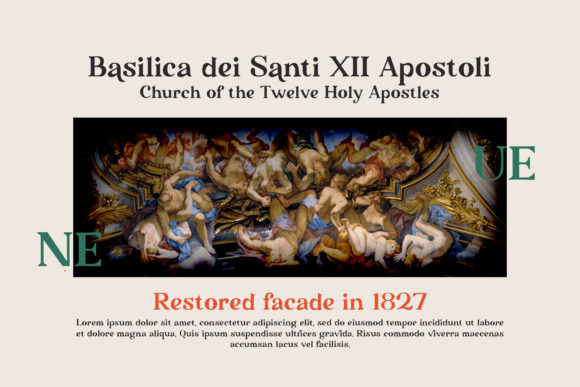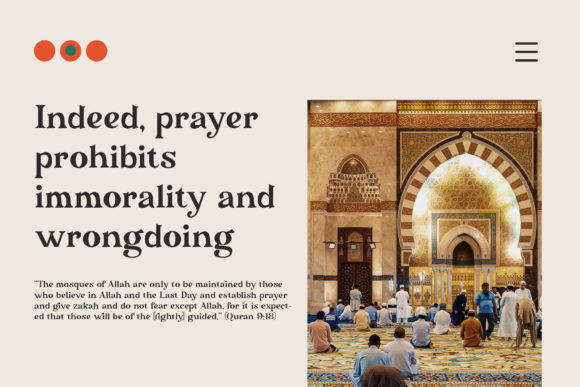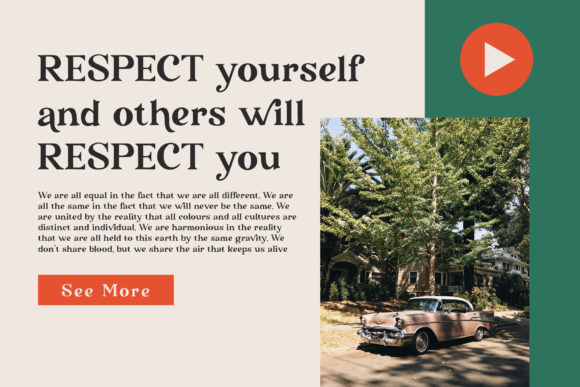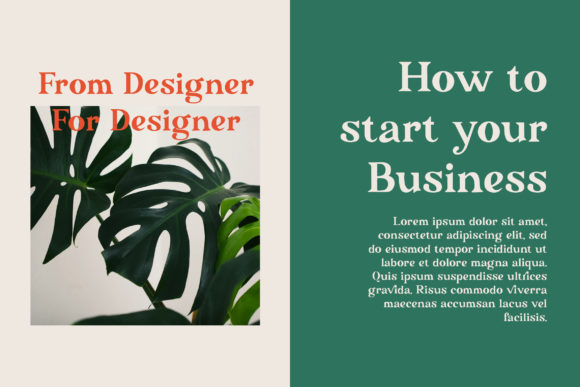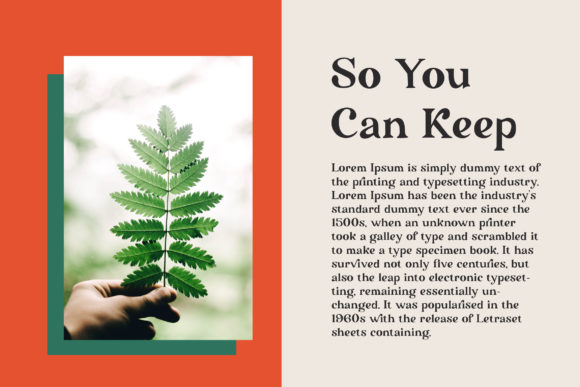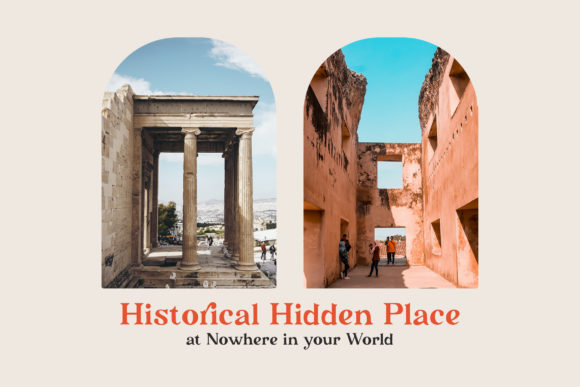
Introduction to Gensino Font
As designers, we’ve all been there – staring at a blank canvas, searching for the perfect font to bring our creative project to life. The right font can make all the difference, elevating a design from bland to grand. For those seeking a charming and elegant serif font, look no further than the Gensino Font.
This beautiful font is perfect for designers who want to add a touch of sophistication to their work. With its high-quality design and transparent background, the Gensino Font is a valuable resource for any creative project. Whether you’re working on a graphic design, logo, or typography project, this font is sure to impress. And the best part? It’s available for free download, making it an excellent addition to any design arsenal.
Key Features of Gensino Font
- High-quality design resource ideal for creative projects, including graphics and digital art.
- Features a transparent background, allowing for effortless layering and blending with other design elements.
- Designed with a modern aesthetic, Gensino Font is perfect for adding a touch of sophistication to your creative project.
- Resolution-independent, ensuring crisp and clear display across various devices and screen sizes.
Honest Review: Gensino Font
I recently had the chance to work with the Gensino Font, and I must say it’s a great addition to my design resource library. The high quality of this font made it a perfect choice for my latest creative project.
Here are some of the things that I liked about the Gensino Font:
- ✨ Unique and stylish design that adds a touch of sophistication to any project.
- ✨ Excellent legibility, making it easy to read and use in both digital and print materials.
- ✨ Comes in a variety of weights, allowing for a lot of flexibility in terms of design and layout.
- ⚠️ Some of the characters may require a transparent background, which can be a bit tricky to work with.
Overall, I’m very impressed with the Gensino Font and would highly recommend it to designers looking for a high-quality, unique font for their creative projects.
For the most out of Gensino Font, use it in combination with other design resources, such as graphics and images. Experiment with different font sizes, colors, and styles to create unique and eye-catching designs.
Gensino Font is ideal for creative projects, such as logos, business cards, and social media graphics. Its transparent background and high quality make it perfect for use in design projects that require a clean and professional look.